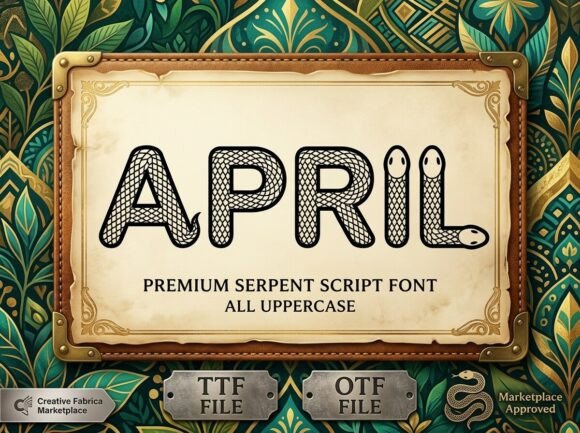
Unleash the Power of April Font: A Mesmerizing Display Typeface
Are you tired of using the same old fonts for your designs? Look no further than April, a bold and captivating display typeface that is sure to take your creations to the next level. With its unique blend of ancient mythological sigils and modern adventurous branding, April is the perfect choice for designers and crafters looking to add a touch of excitement to their work.
The Inspiration Behind April Font
April’s design is inspired by the concept of “hypnotic-and-hidden” soul, which is reflected in its bold, all-uppercase letterforms and intricate, hand-drawn “scaled” texture. The font’s creator aimed to bridge the gap between ancient mythology and modern design, resulting in a truly one-of-a-kind typeface. The addition of literal serpent heads and tails adds an air of mystery and sophistication, making April perfect for designs that require a sense of adventure and intrigue.
Unique Features of April Font
So, what sets April apart from other fonts? Here are just a few of its unique features:
- Intricate, hand-drawn “scaled” texture: April’s texture is reminiscent of snake scales, adding a tactile and organic feel to your designs.
- Literal serpent heads and tails: The font’s use of serpent heads and tails adds a touch of mythology and mysticism, making it perfect for designs that require a sense of adventure and mystery.
- Heavy structural weight: April’s bold and sturdy design makes it perfect for high-impact designs, such as social media headers and book covers.
- Enigmatic personality: April’s unique design and mythology-inspired features give it an air of mystery and intrigue, making it perfect for designs that require a sense of sophistication and elegance.
Use Cases for April Font
So, what types of designs is April best suited for? Here are just a few ideas:
- Independent exotic pet branding: April’s unique blend of mythology and modern design makes it perfect for branding exotic pets, such as snakes, lizards, and other unusual animals.
- Historical mystery book covers: The font’s bold and enigmatic design makes it perfect for book covers that require a sense of mystery and intrigue.
- Jungle-themed attraction identities: April’s use of serpent heads and tails, combined with its bold and adventurous design, makes it perfect for jungle-themed attractions, such as zoos, aquariums, and adventure parks.
- High-impact social media headers: April’s heavy structural weight and mesmerizing design make it perfect for social media headers that require a sense of drama and impact.
Tips for Using April Font
Here are a few tips for getting the most out of April font:
- Use it sparingly: April’s bold and intricate design makes it perfect for headlines and titles, but it can be overwhelming if used too much. Use it sparingly to add emphasis and create visual interest.
- Experiment with color: April’s design looks great in bold, bright colors. Experiment with different color schemes to find the one that works best for your design.
- Pair it with a simple font: April’s intricate design can be overwhelming when paired with another bold font. Pair it with a simple font to create visual contrast and add emphasis.
April font is a truly unique and captivating display typeface that is sure to add a touch of excitement to your designs. With its bold and intricate design, April is perfect for designers and crafters looking to create high-impact designs that require a sense of adventure and mystery. Whether you’re designing a book cover, social media header, or branding materials, April is the perfect choice.